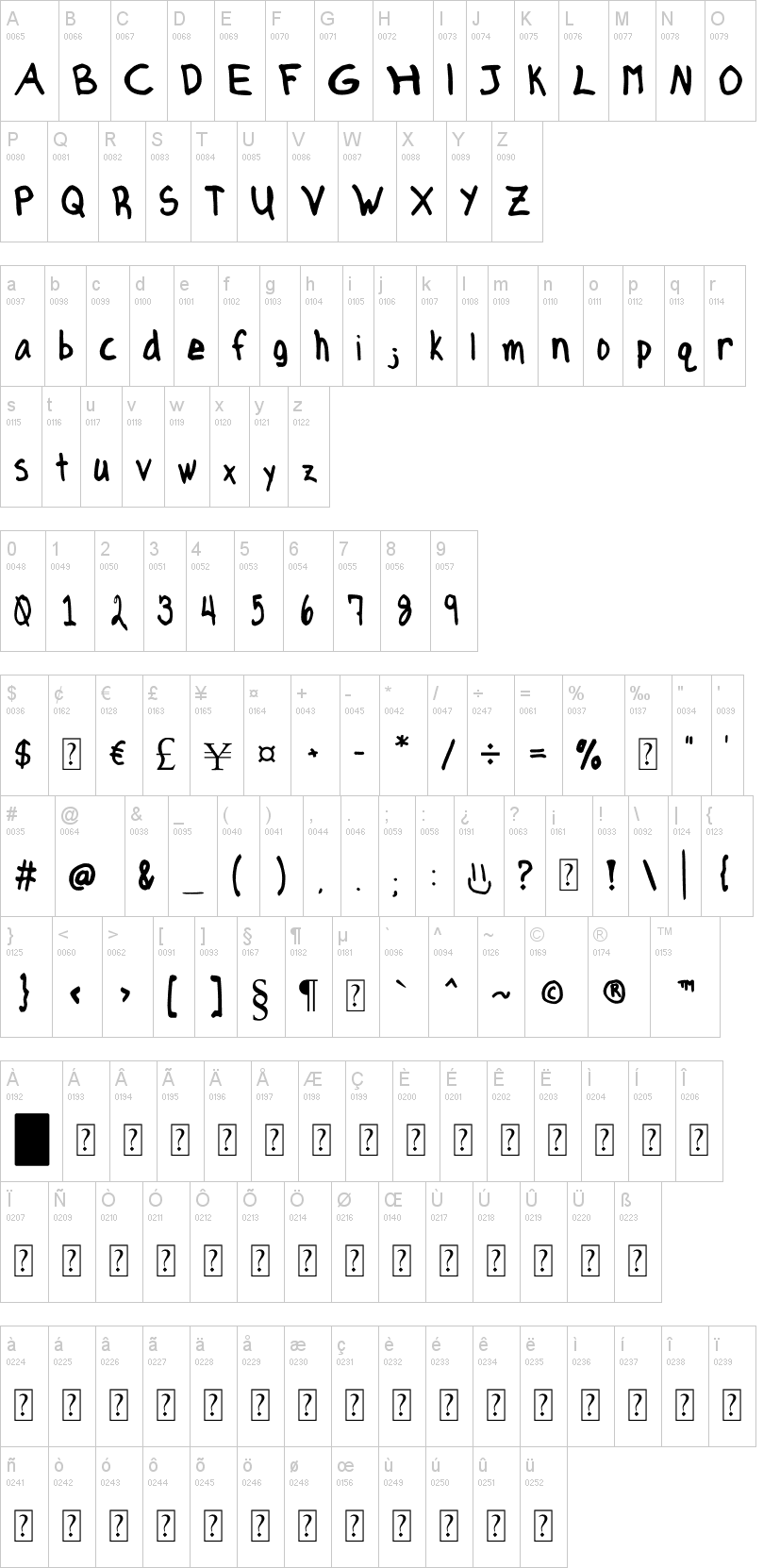
Note of the authorNow that I am eighteen, a legal adult in the United States, looking back at this font that I made in seventh grade (purely for fun, of course) all I can do is cringe. Well, that and be totally shocked by the 30,000 downloads indicator.
I have kept the original description (from 2007) below so that I may cry every time I see it:
This is my handwritting. (I know what you are thinking - Sloppy!) I chose the name because my initials are A.C.S which, when said, sounds like "Axe" and Hand because it is handwritting. Hope it serves you go. It is only available for person use though.